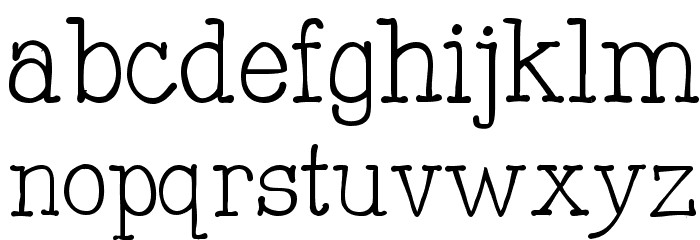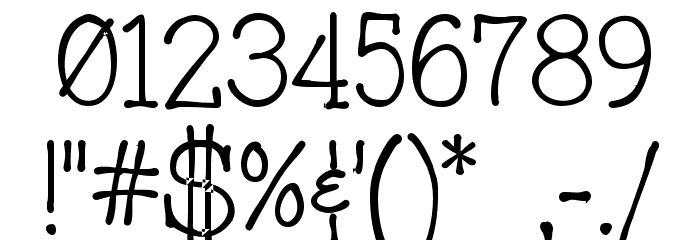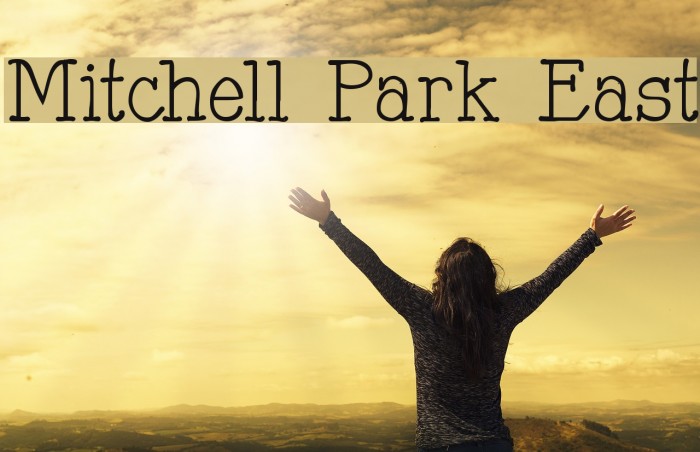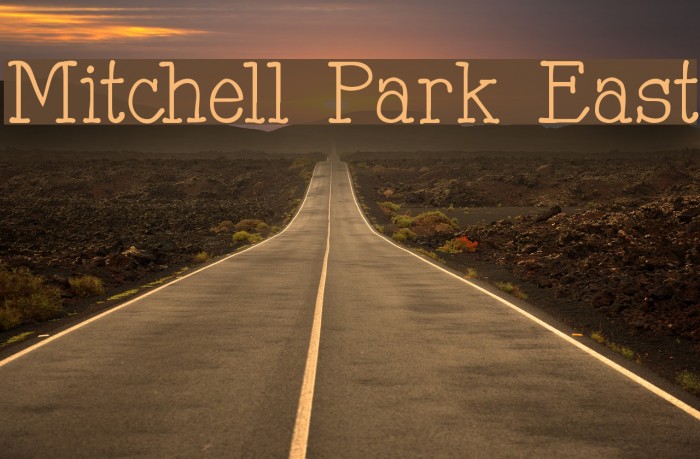
Mitchell Park East Font
This font features a classic serif style with a touch of elegance and sophistication. The characters are well-defined with slight curves and a moderate stroke contrast, giving it a timeless appeal. The uppercase letters are bold and commanding, while the lowercase letters maintain a consistent flow, making it versatile for various design needs. The numerals are clear and legible, ensuring readability in both print and digital formats. Special characters are distinct and harmonize well with the overall design, making this font suitable for a wide range of applications.
A classic serif font with elegant curves and moderate contrast.
- Overall Style: Classic